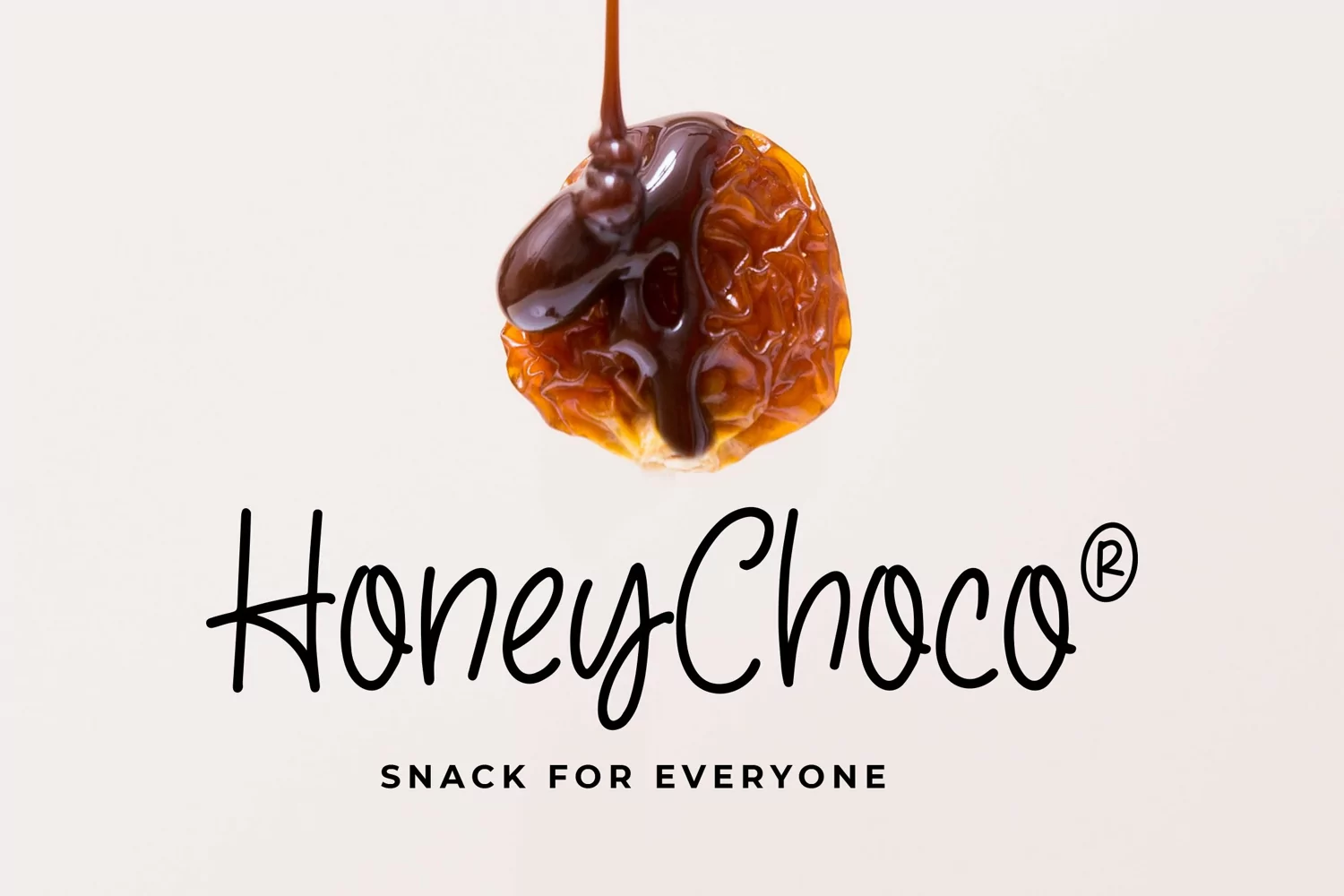
Snack & Chips - Playful Kids Font that contain lowercase, uppercase, symbol, and also support multi language. There’s a lot ligatures in this font. This Font also comes with ligatures, alternates and many more. this font suitable for fashion, branding, catalog and other design what you want.